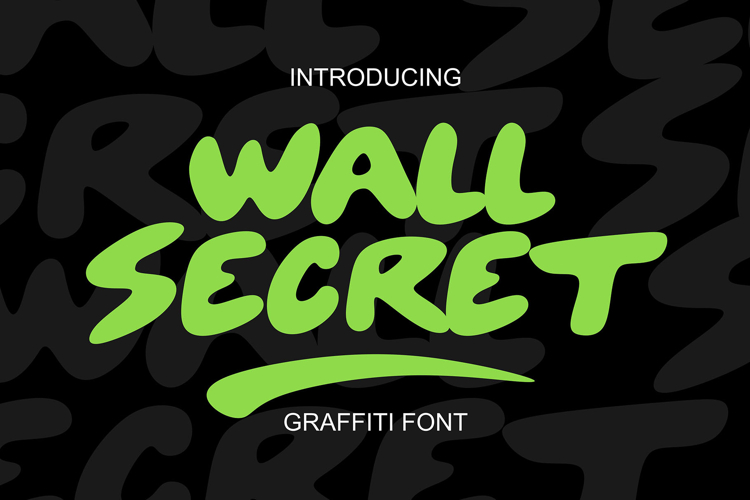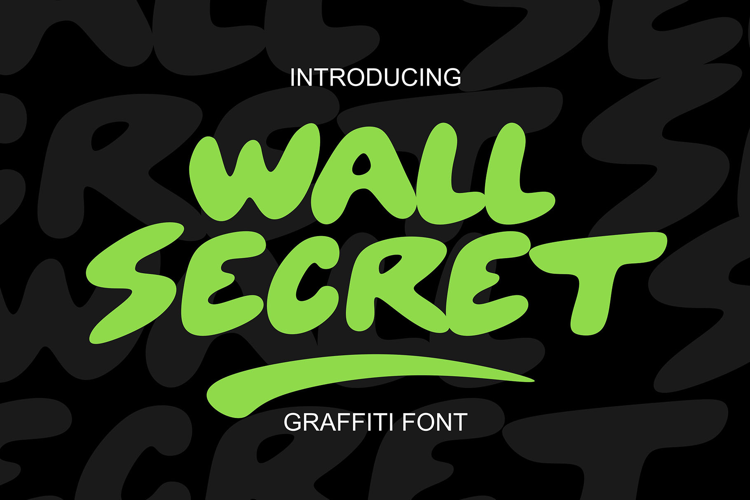
Wall Secret Freestyle Graffiti Font
Wall Secret is a wild and expressive freestyle graffiti font that captures the raw spirit of the streets. With its allcaps letterforms, this font mimics spontaneous spray-paint strokes—chaotic, loud, and full of motion. Perfect for digital posters, album covers, music visuals, street-inspired branding, or social content that dares to break the rules.
Bold Graffiti Font for Loud, Rebellious Visuals Looking for a graffiti font that screams attitude? Wall Secret is made for designers who love chaos and creativity. It’s the ultimate pick for bold headlines, gritty event promos, game titles, or YouTube thumbnails. This freestyle graffiti font brings edge, movement, and street flavor to your layouts—without needing extra effects.
Built for Global Reach with Multilingual Support Wall Secret includes multilingual characters, so your bold, graffiti-style designs can go global without losing authenticity. Whether you're designing for an international client or sharing street-inspired messages online, this urban display font ensures your voice stays strong in any language.
Key Features
- � Freestyle Graffiti Style with strong street influence
- � Allcaps Lettering for Maximum Impact
- � Multilingual Support
- � Ideal for posters, covers, album art, digital content, and rebellious branding
- � Built for loud, energetic, and rule-breaking designs
Why Designers Love Wall Secret Designers are drawn to Wall Secret because it doesn’t play by the rules. It’s expressive, chaotic, and confident—everything you want in a graffiti display font. Whether you're crafting visuals for music drops, edgy promos, or cultural commentary, this font amplifies your message with zero hesitation.
Unleash the Street Vibe in Every Word Wall Secret is more than a font—it’s an act of visual rebellion. Let your headlines drip with attitude and your designs shout with confidence. For those who want raw urban energy on every project, this freestyle graffiti font delivers every time. Download now and make your mark.